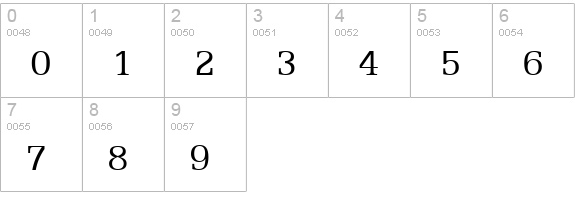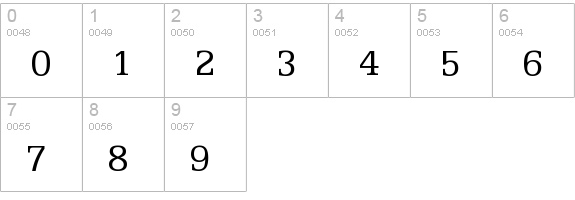
Eggo Normal Font Details
Eggo Normal is the standard, neutral variant in the Eggo typeface family \xE2\x80\x94 well suited to general body text, paragraphs, and standard typographic work.
Eggo Normal is a versatile and modern font that effortlessly combines elegance with simplicity. Its clean lines and balanced proportions make it the perfect choice for a wide range of design projects, whether it be a professional website, a sleek corporate logo, or even a stylish packaging design. This font exudes a sense of professionalism and sophistication, making it suitable for both print and digital media. Its timeless appeal ensures that it will never go out of style, making it a reliable choice for any designer. One of the best things about Eggo Normal is that it is freely available to download at FontsMarket.com. This means that you can easily access this high-quality font without any cost, making it a valuable asset for designers on a budget. With Eggo Normal, you can create stunning designs without having to break the bank. Whether you are a seasoned designer or just starting out, Eggo Normal is a must-have font in your collection. Its versatility, elegance, and free availability make it an invaluable resource for any design project. Download Eggo Normal today from FontsMarket.com and elevate your designs to new heights.